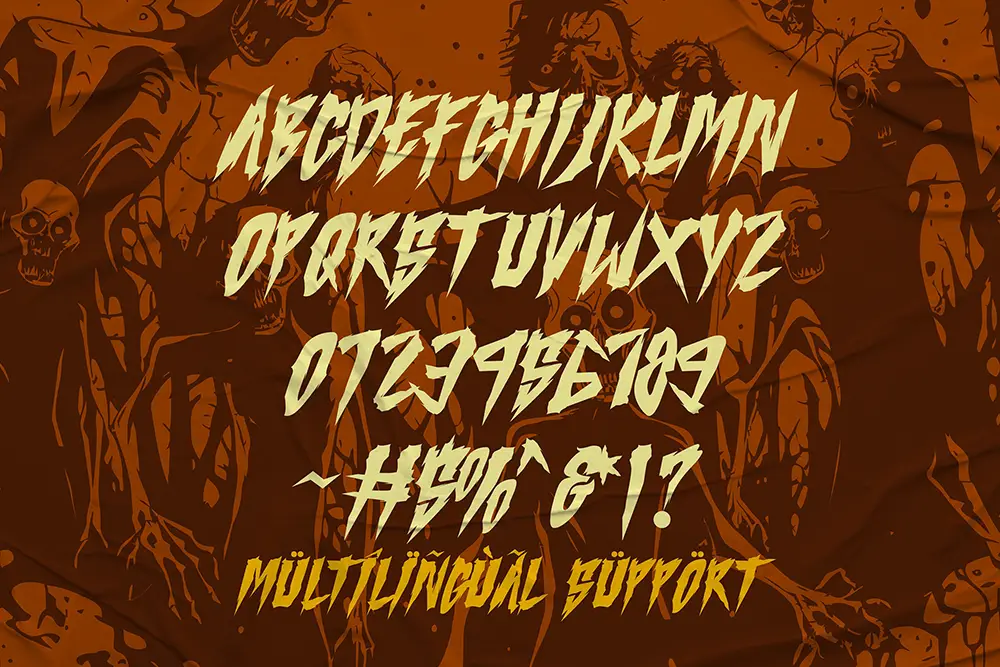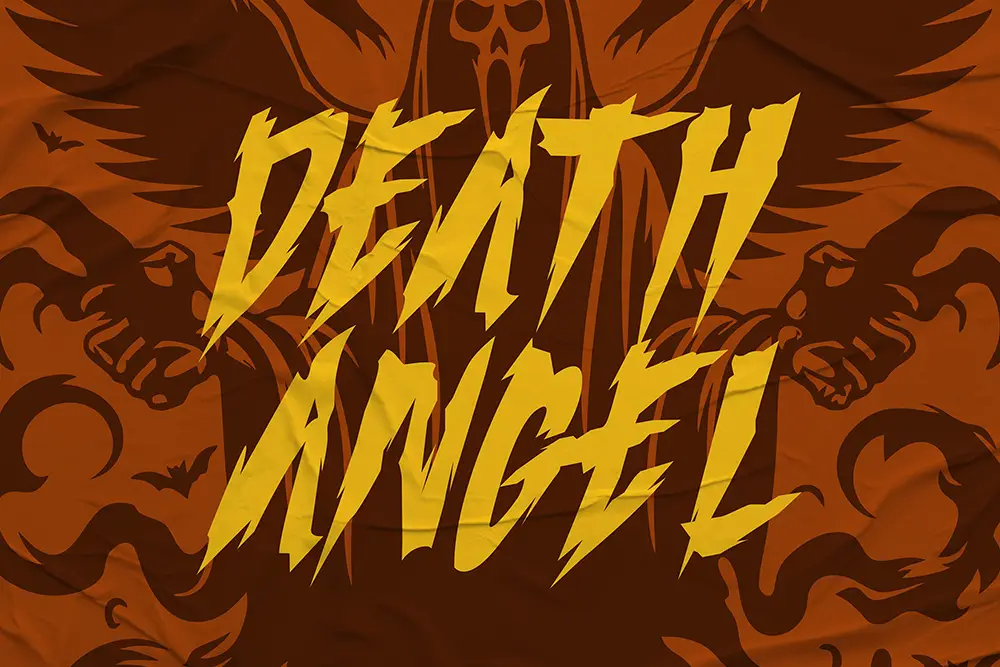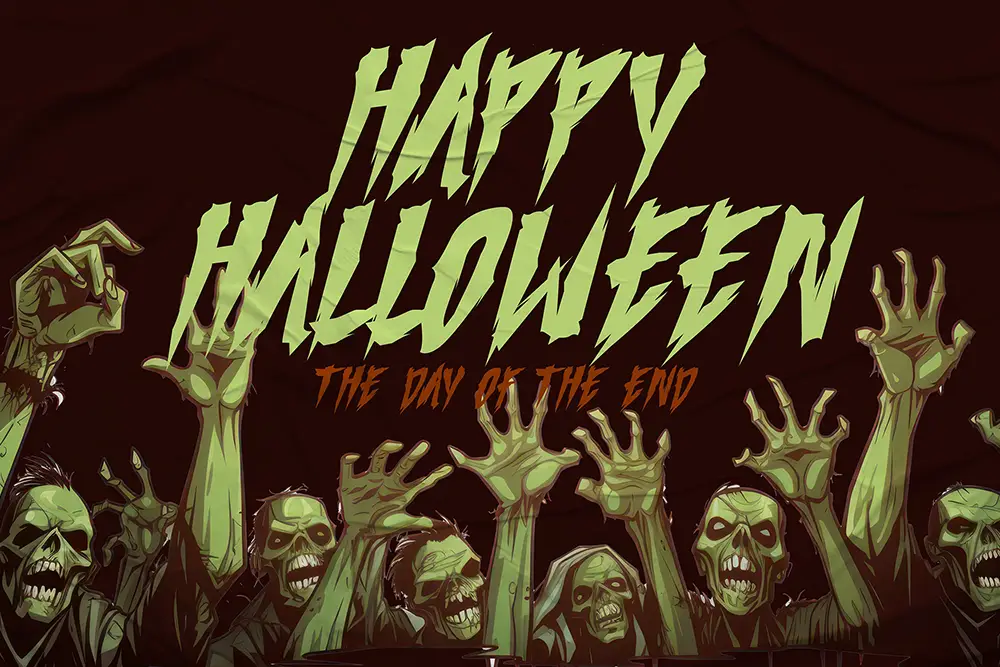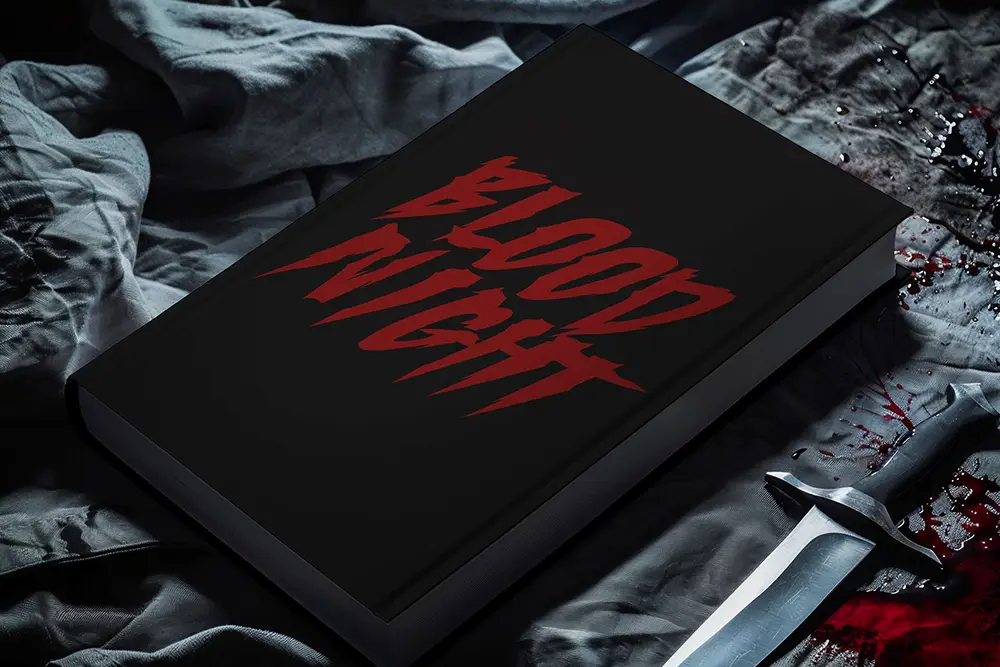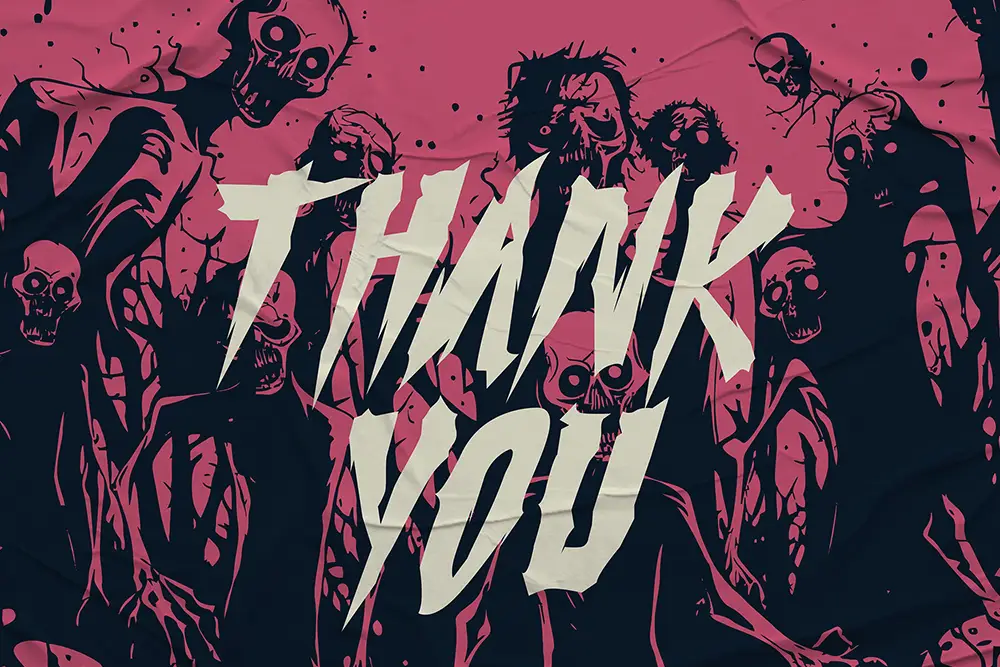
Ghostly Whispe – Brush Horror Font for Spooky Halloween Designs
Typography is the soul of design, and when it comes to creating fear, tension, or eerie vibes, nothing works better than a brush horror font. Introducing Ghostly Whispe – Brush Horror Font, a chilling all-caps typeface crafted to bring a haunted edge to your creative projects. Whether you’re designing Halloween posters, movie titles, eerie logos, or dark event invitations, this brush horror font ensures your work will stand out with bold, terrifying style.
From jagged brush strokes to unsettling textures, Ghostly Whispe is a must-have tool for designers who want to capture fear and intrigue.
Brush Horror Font with All-Caps Impact
Ghostly Whispe is an all-caps brush horror font designed to maximize impact in every layout. Its distressed strokes simulate hand-painted brush lettering, instantly giving your projects an authentic horror aesthetic.
This brush horror font is ideal for Halloween campaigns, haunted house branding, spooky movie posters, and themed social media graphics. Its all-caps form makes it bold and commanding, ensuring your message cannot be ignored.
Key Features of Ghostly Whispe – Brush Horror Font
Designers value fonts that deliver both function and aesthetics. Here are the standout features of Ghostly Whispe:
- All-Caps Style: Perfect for bold, scary titles and eerie headlines.
- Multilingual Support: Extended Latin characters to reach global audiences.
- Authentic Brush Texture: Rough, hand-drawn look for maximum creep factor.
- High Versatility: Ideal for posters, logos, banners, and digital content.
- Designed for Halloween: Specifically crafted to match spooky and horror themes.
Why Designers Love Ghostly Whispe
Professional creatives love Ghostly Whispe because it combines brush horror font authenticity with design usability.
Here’s why it’s a favorite:
- Atmosphere Ready: Creates instant horror vibes with minimal effort.
- Bold Presence: All-caps style ensures attention-grabbing typography.
- Creative Power: Loved by designers making posters, horror covers, and spooky event designs.
Ghostly Whispe for Posters and Horror Branding
Posters are one of the most important mediums for horror visuals, and Ghostly Whispe delivers. This brush horror font thrives in large headlines where its textured brush strokes shine. From Halloween party flyers to haunted house banners, Ghostly Whispe ensures your design looks both terrifying and professional.
When paired with eerie graphics or dark photography, this brush horror font becomes the centerpiece of spooky branding.
Ghostly Whispe for Logos and Movie Titles
Looking to create horror movie titles, Halloween-themed logos, or spooky event wordmarks? Ghostly Whispe makes it easy. As a brush horror font, its hand-drawn strokes instantly convey fear and suspense. Its all-caps format ensures logos look strong and cinematic, making it perfect for the entertainment industry.
Ghostly Whispe in Digital Media
In today’s digital world, scary fonts are a huge part of Halloween campaigns and online promotions. Ghostly Whispe is a brush horror font that works perfectly for YouTube thumbnails, social media posts, TikTok graphics, and more.
Its multilingual support makes it suitable for designers worldwide, while its brush texture ensures your content stands out in a crowded digital space.
- Character Set: All Caps, Numbers, Punctuation
- Category: Brush Horror Font
- Best Uses: Halloween Posters, Horror Movie Titles, Spooky Logos, Event Flyers, Digital Media
Font Pairing Suggestions
To maximize its creepy vibe, pair Ghostly Whispe with these complementary fonts:
- Cursed Night Bold Halloween Font – adds thick, bold terror alongside Ghostly Whispe’s brushy detail.
- Serif or clean sans fonts – balance the distressed strokes with minimal text for professional layouts.
Why Ghostly Whispe is the Brush Horror Font You Need
Typography is central to Halloween and horror design, and Ghostly Whispe delivers unmatched style. As a brush horror font, it provides raw authenticity, boldness, and professional flexibility. From haunted posters to TikTok campaigns, it gives your projects an instant scary upgrade.
Bring your Halloween and horror designs to life with Ghostly Whispe today. Pair it with Cursed Night for a chilling combo, or use it solo for maximum impact.